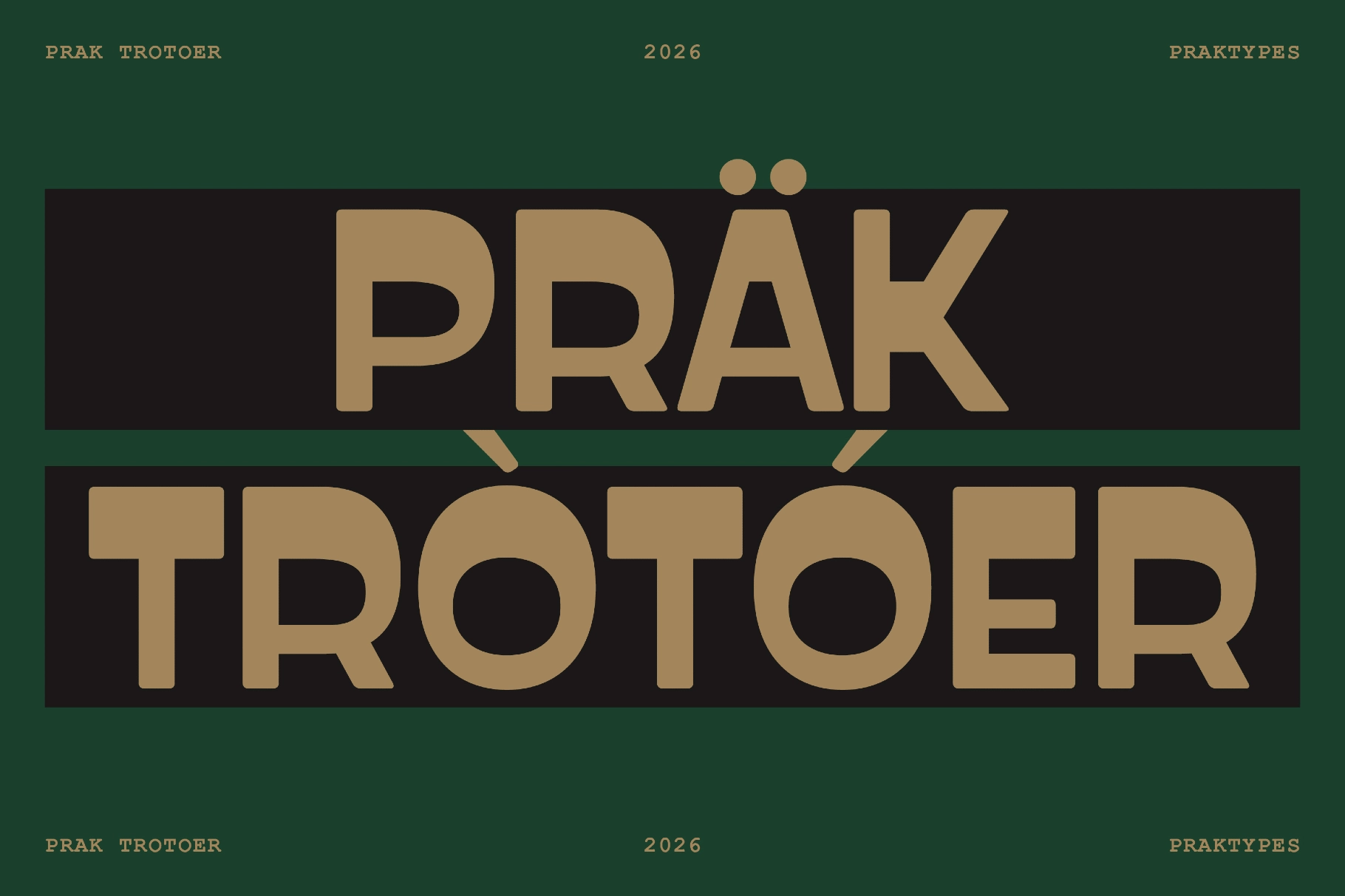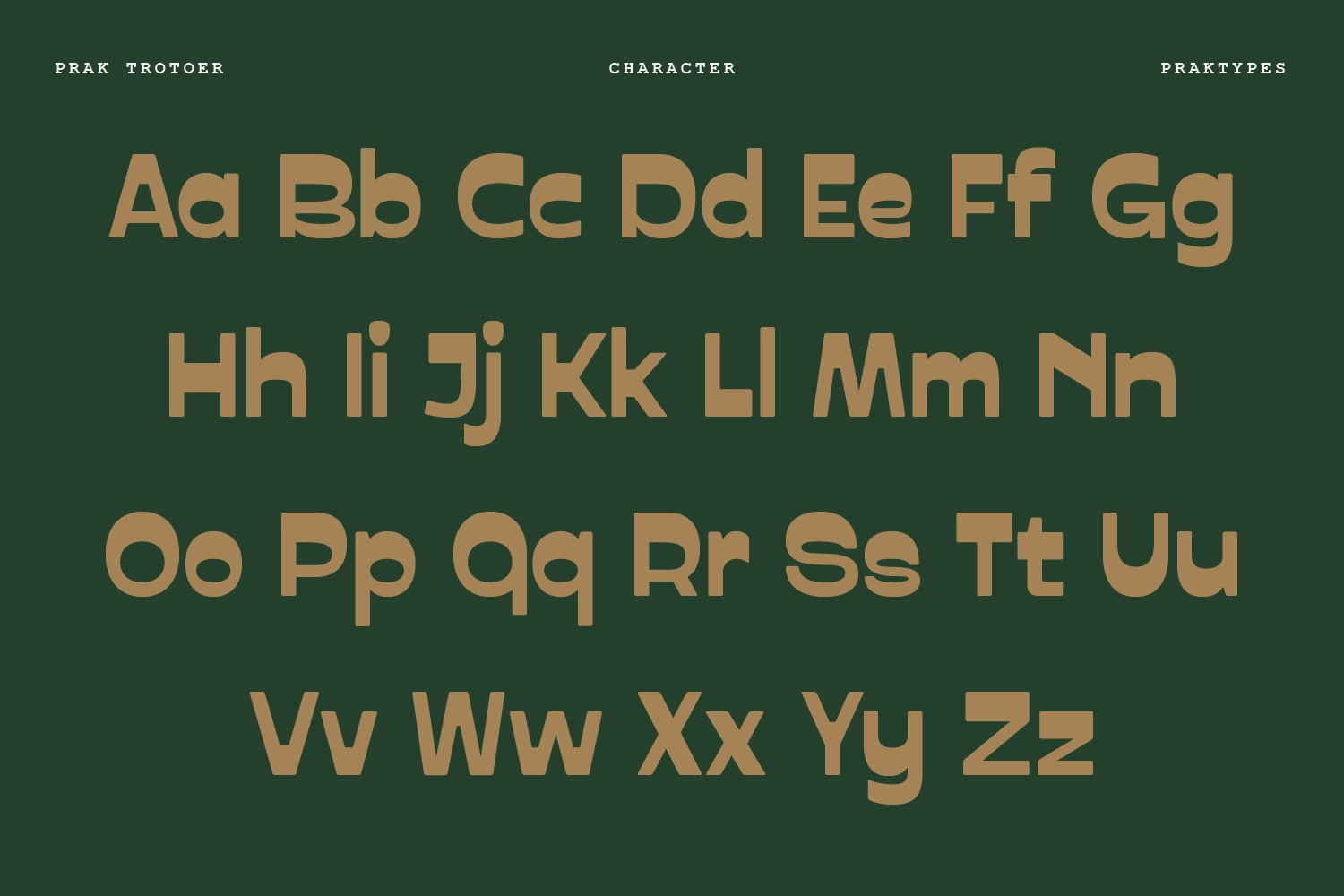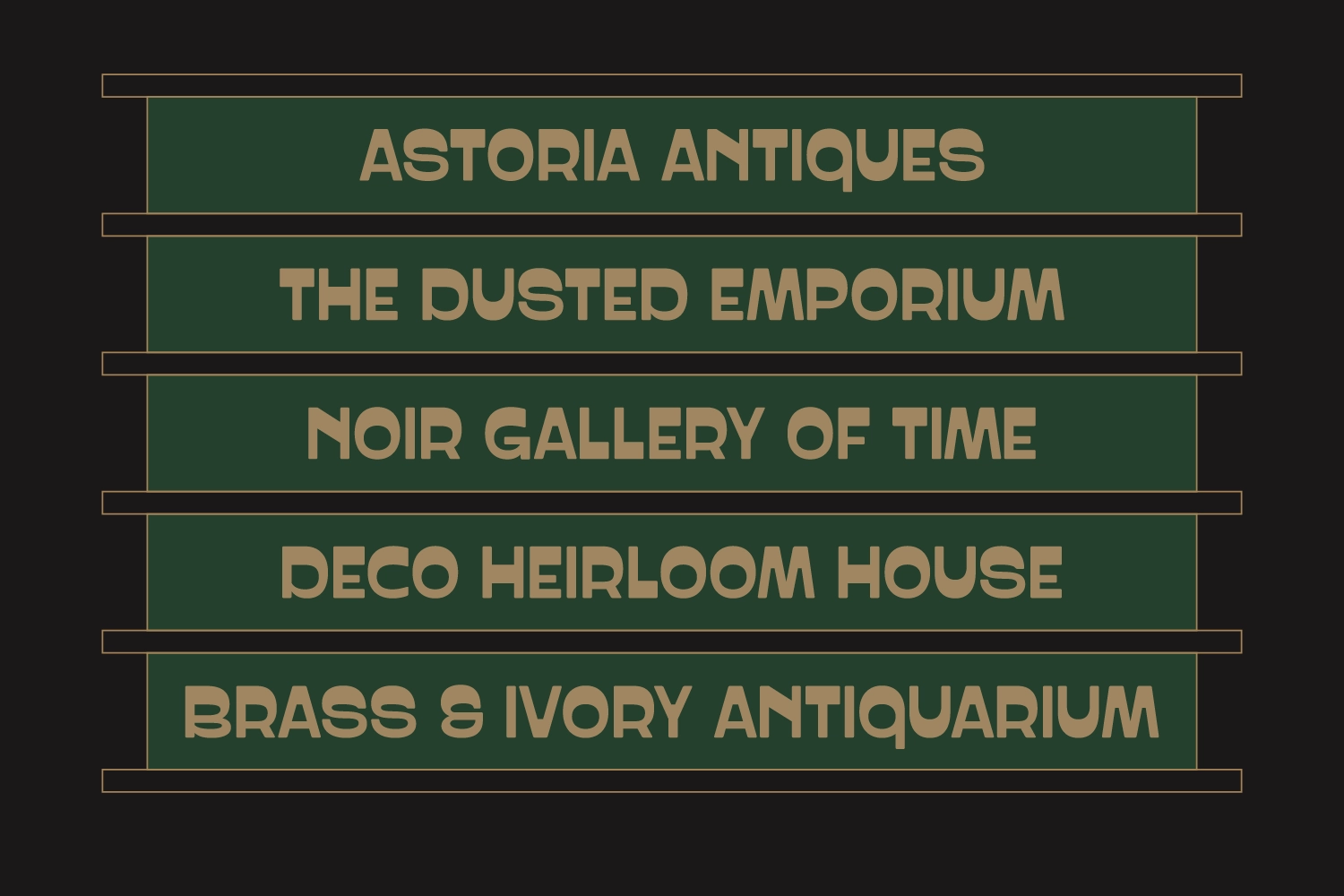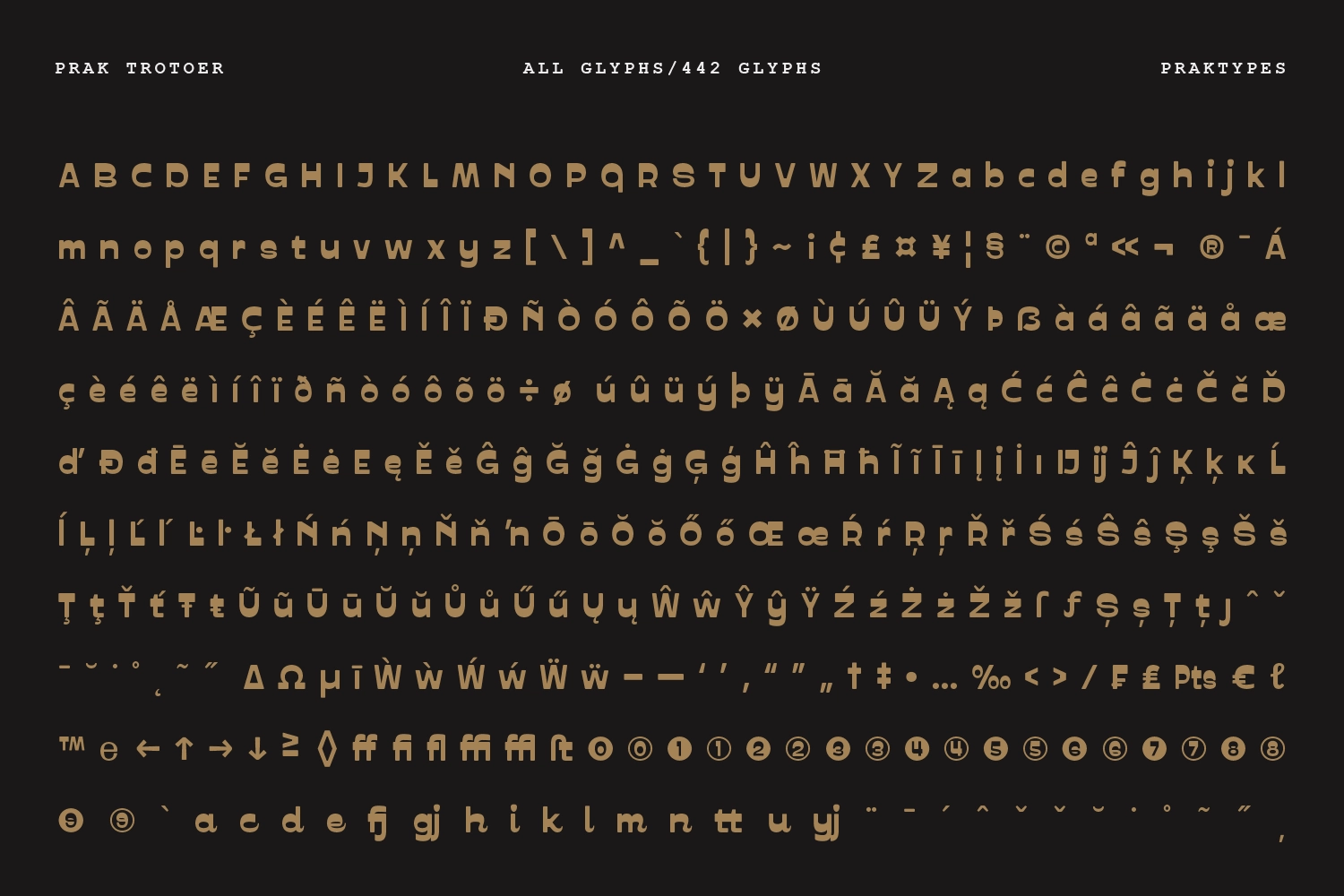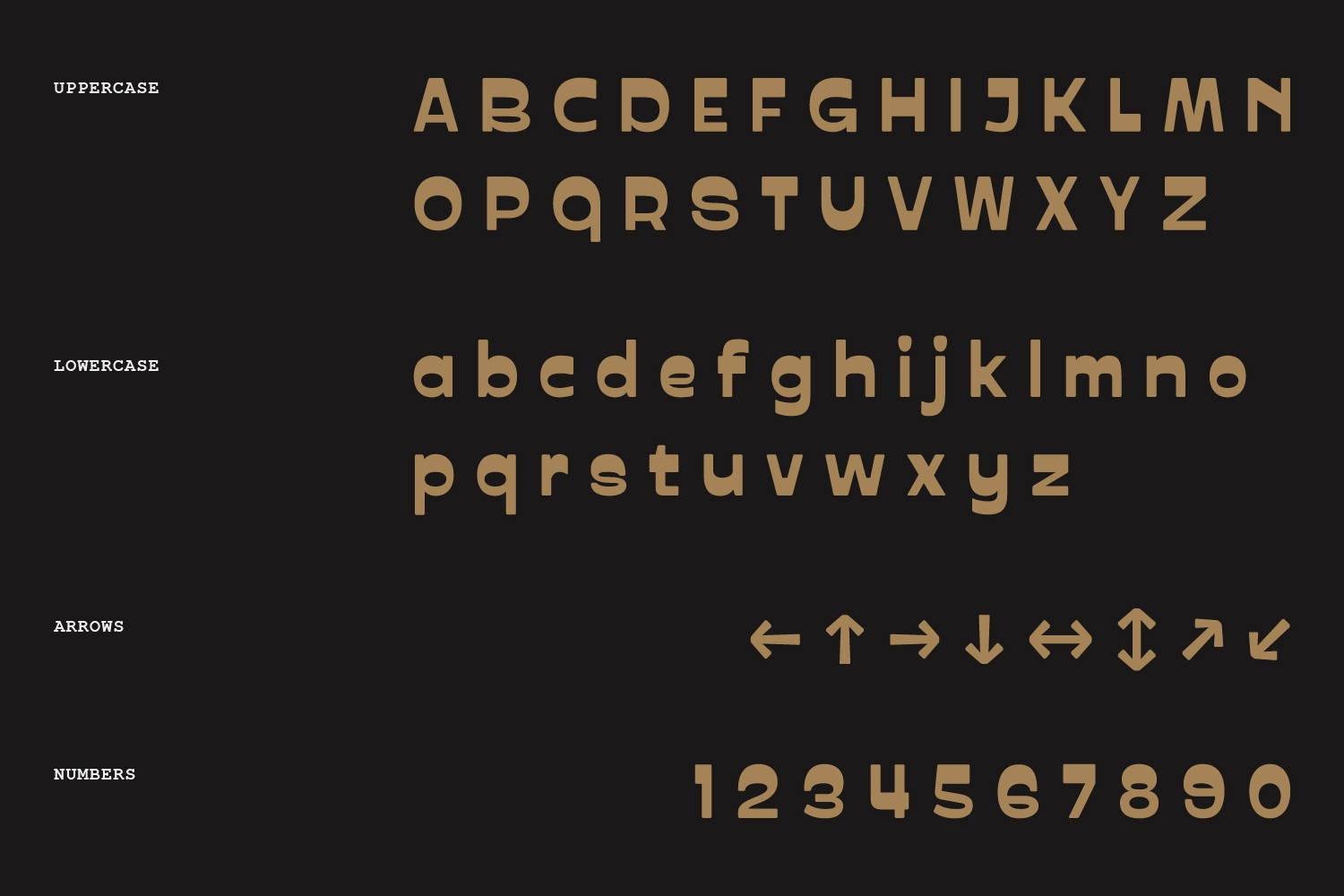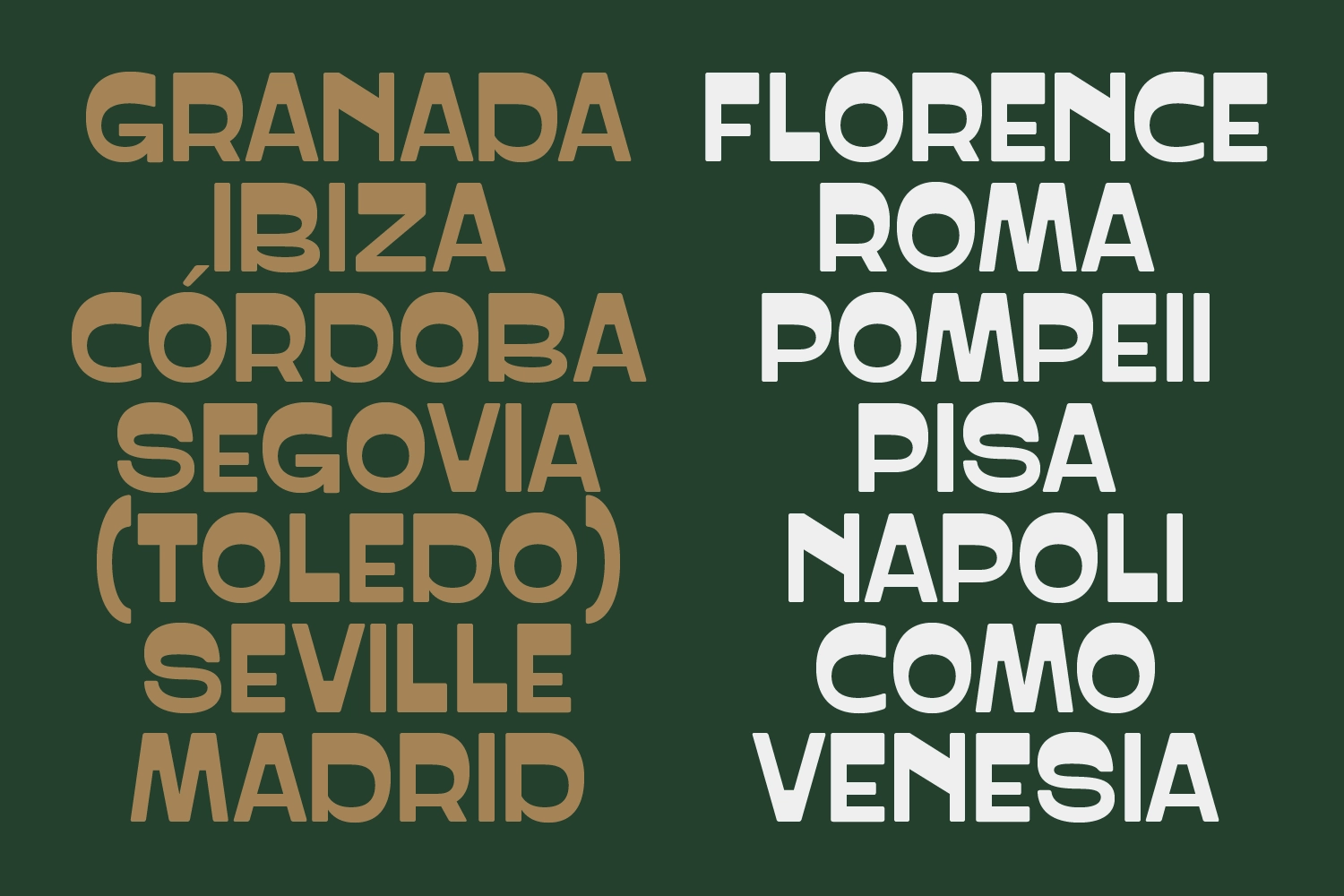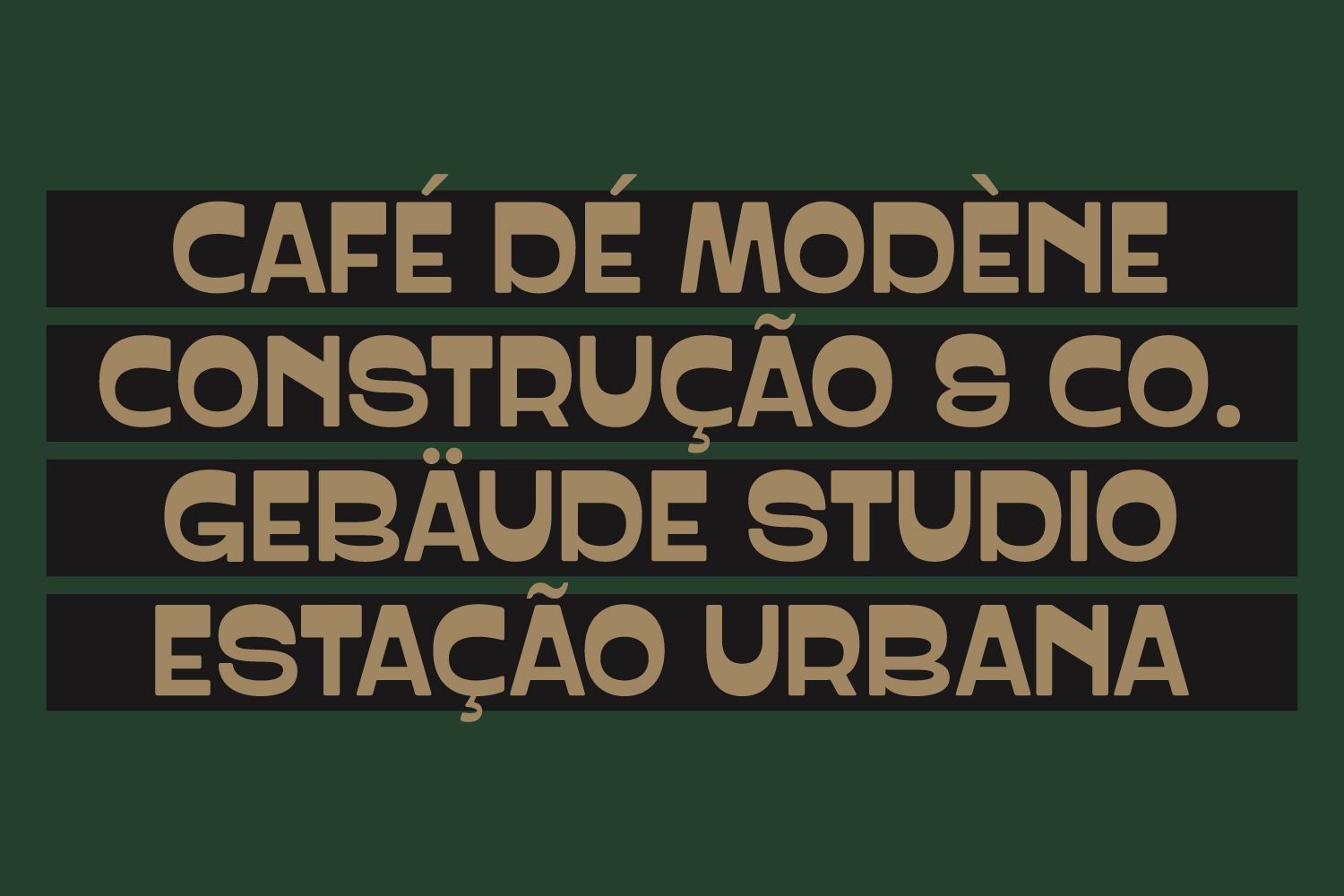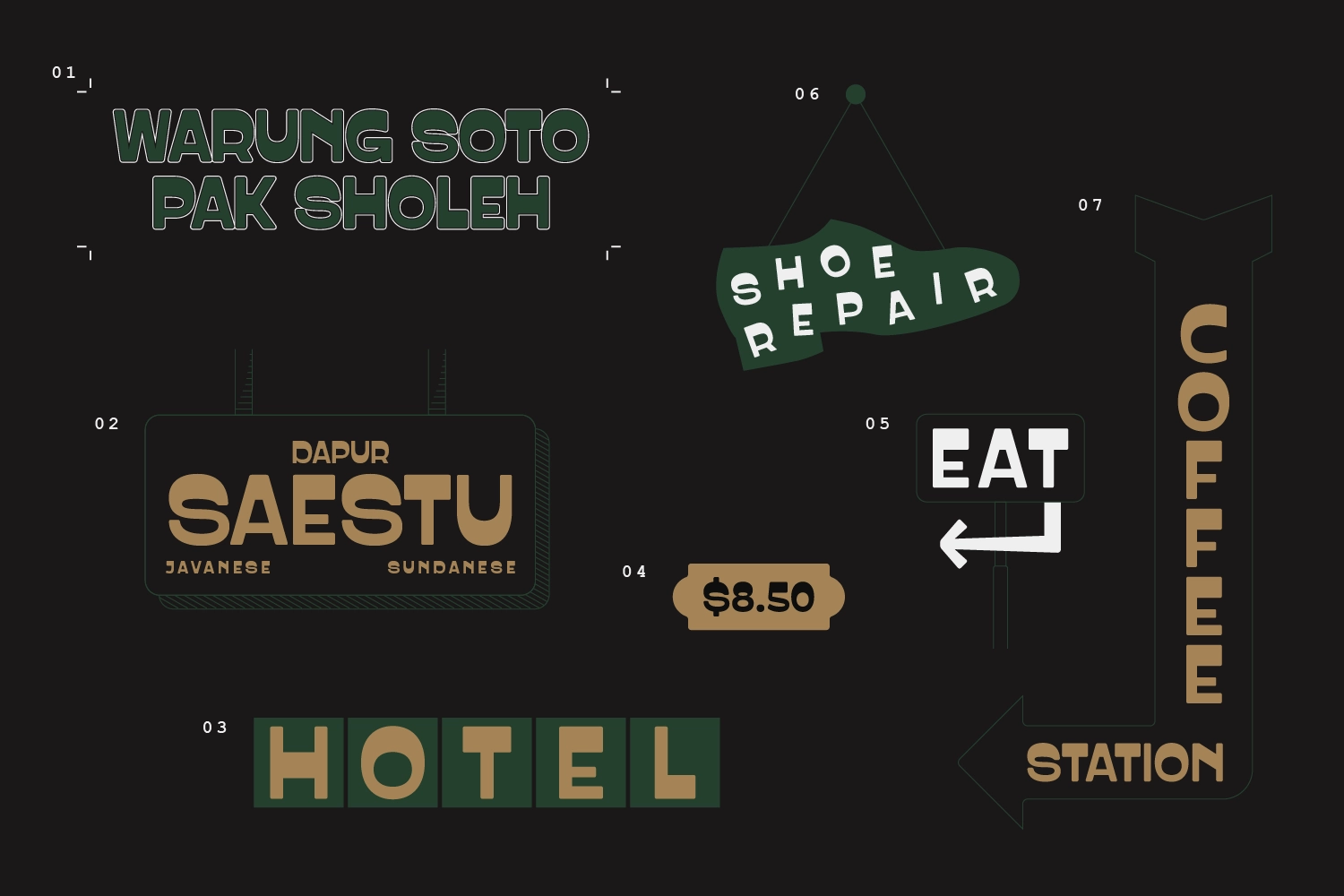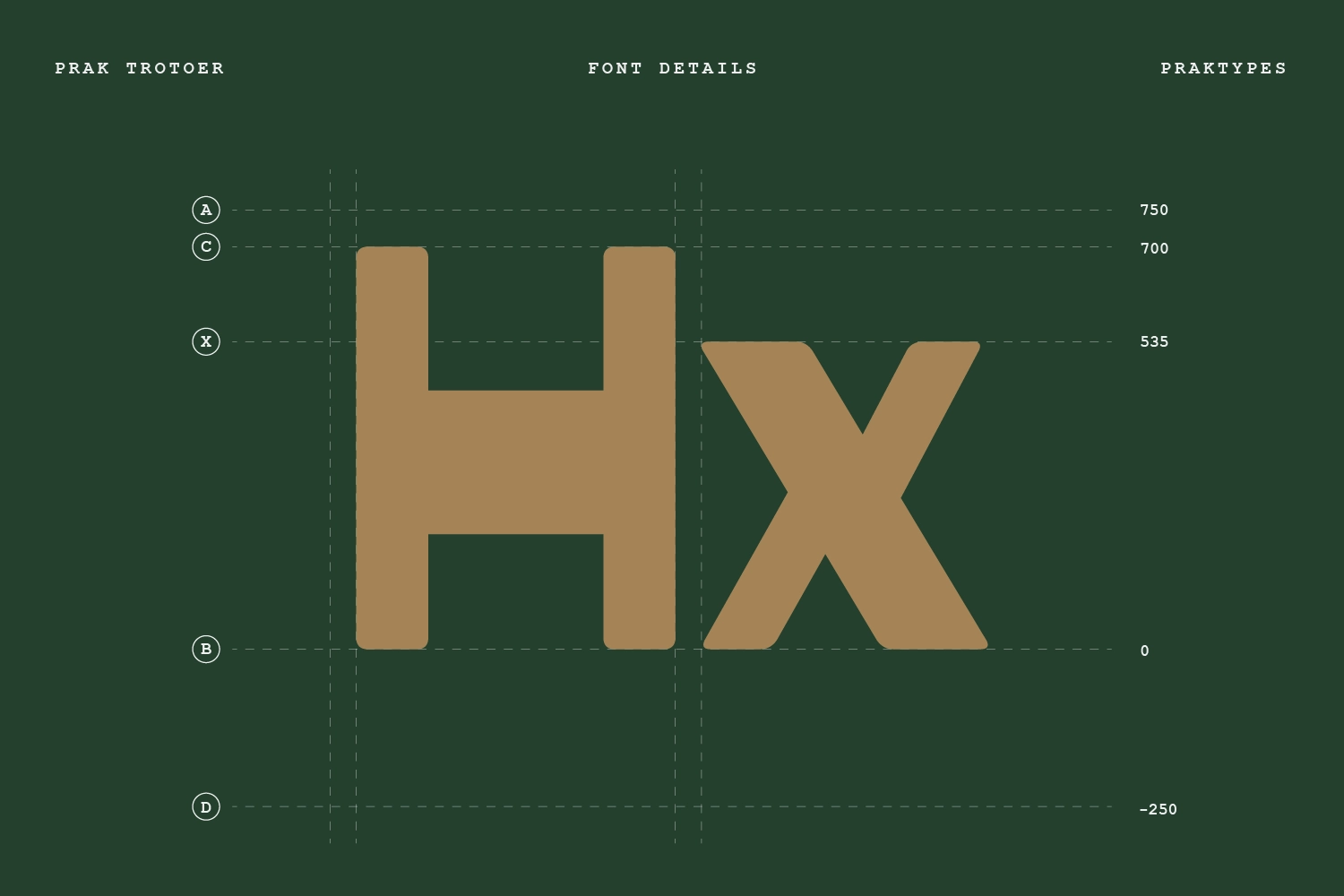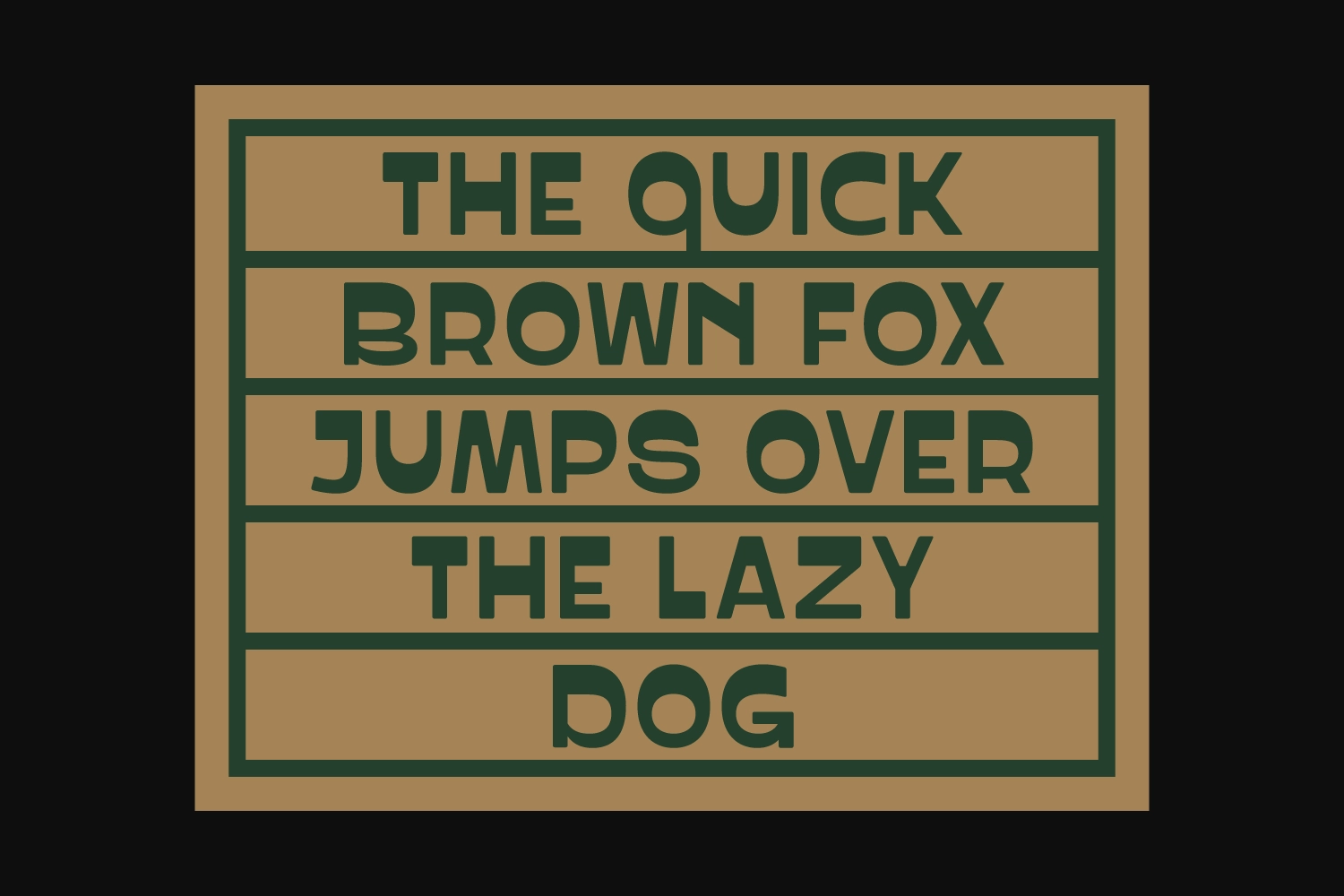
PRAK Trotoer - Vintage Display Font
PRAK Trotoer
A bold vintage display sans with chunky geometric forms, softened corners, and the sturdy charm of old storefront lettering. Its compact rhythm, playful cuts, and warm proportions make it ideal for headlines that need presence without shouting across the street like a sandwich board with opinions.
Prak is made for antique shop identities, bakery branding, restaurant menus, café signage, editorial headlines, poster design, market labels, food packaging, social media campaigns, wayfinding graphics, merch, book covers, and artisan product branding. The arrow glyphs, alternates, ligatures, fractions, and wide multilingual set give designers plenty of room for lively layouts and signage-style compositions.
- 442 glyphs
- Stylistic alternates
- Ligatures